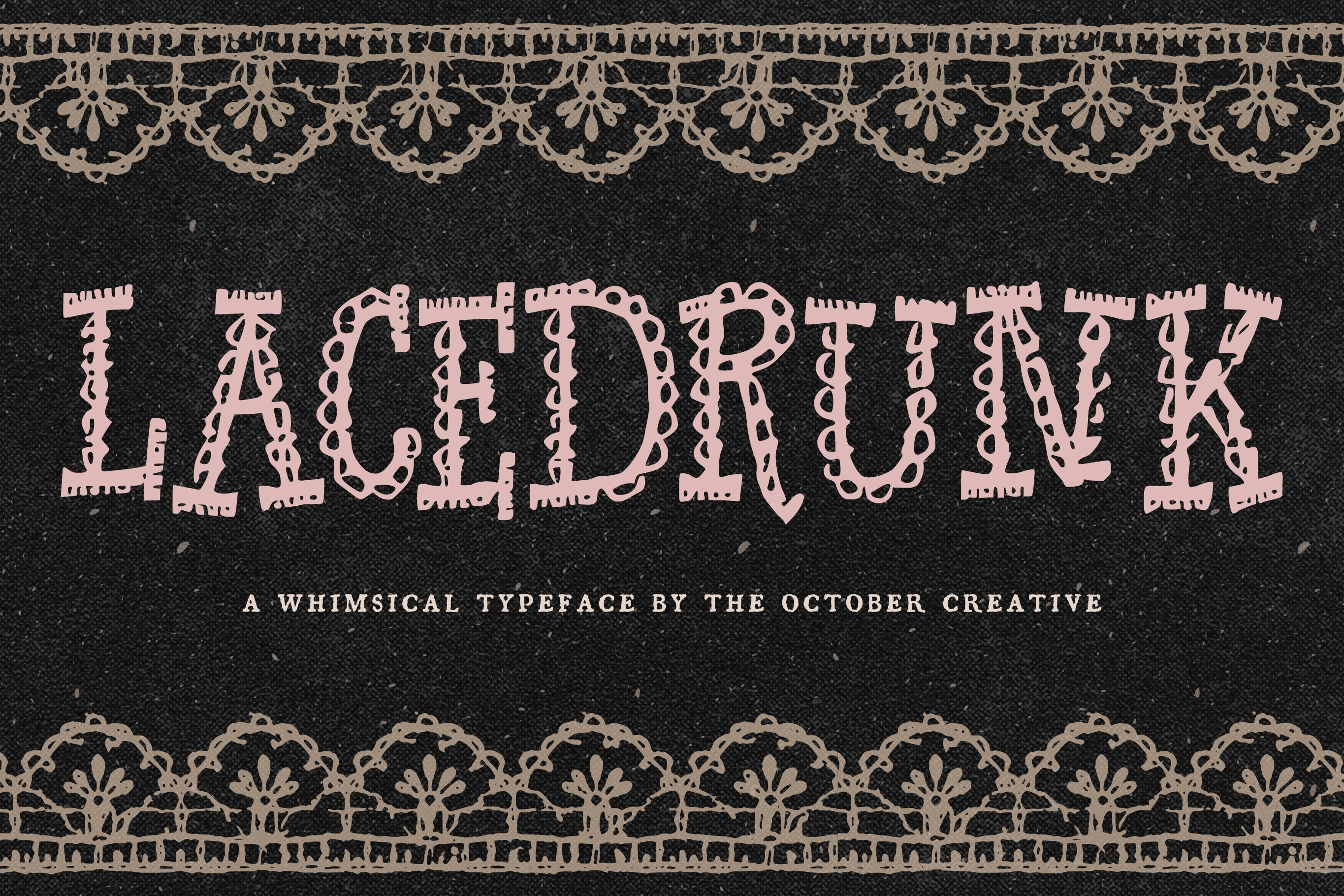
Lacedrunk Lace Pattern Font
Lacedrunk is a decorative serif font with lace, scallop, and dot patterns inside every letter. It's made for big, short words: bridal shower invitations, monograms, boutique-style labels, and headers.
CHARACTER SET
Uppercase A to Z, lowercase a to z, numerals 0 to 9, and every standard keyboard punctuation mark and symbol: ! " # $ % & ' ( ) * + , - . / : ; < = > ? @ [ \ ] ^ _ ` { | } \~
Curly quotes and apostrophes (‘ ’ “ ” ‚ „), en and em dashes, an ellipsis, and a bullet.
Accented letters: À Á Â Ã Ä Å Ç È É Ê Ë Ì Í Î Ï Ñ Ò Ó Ô Õ Ö Ù Ú Û Ü and their lowercase forms.
LANGUAGES SUPPORTED
English, plus the accented vowels, Ñ, and Ç used in names and everyday words in Spanish, French, Italian, Portuguese, German, and Dutch. Not included: ß, Æ, Ø, Œ, and the upside-down ¿ and ¡.
SPECIAL CHARACTERS